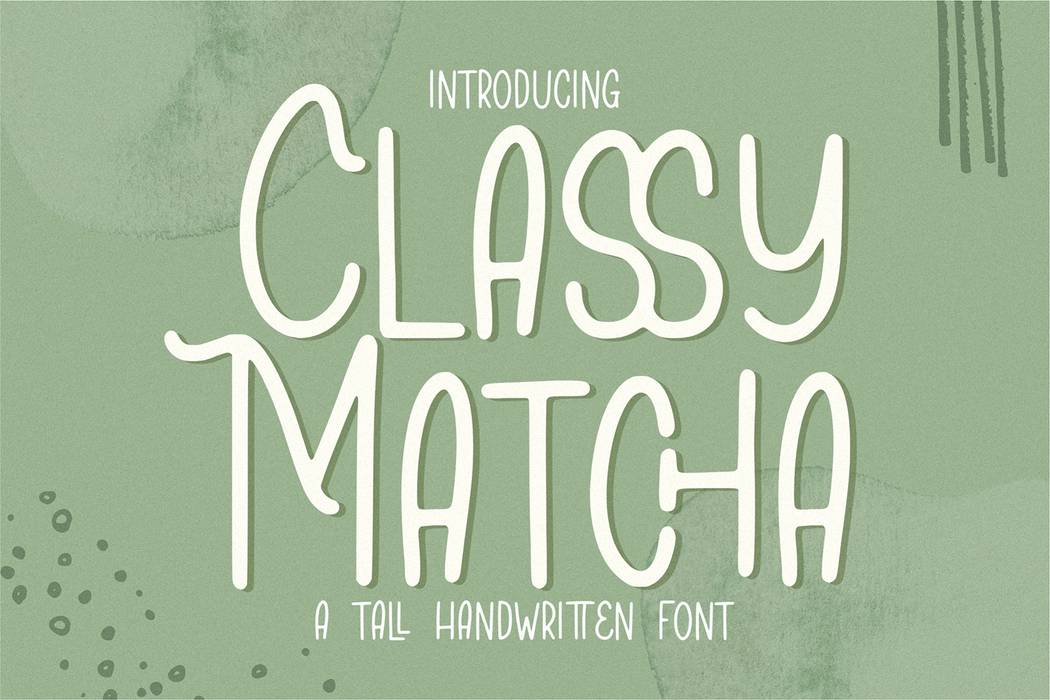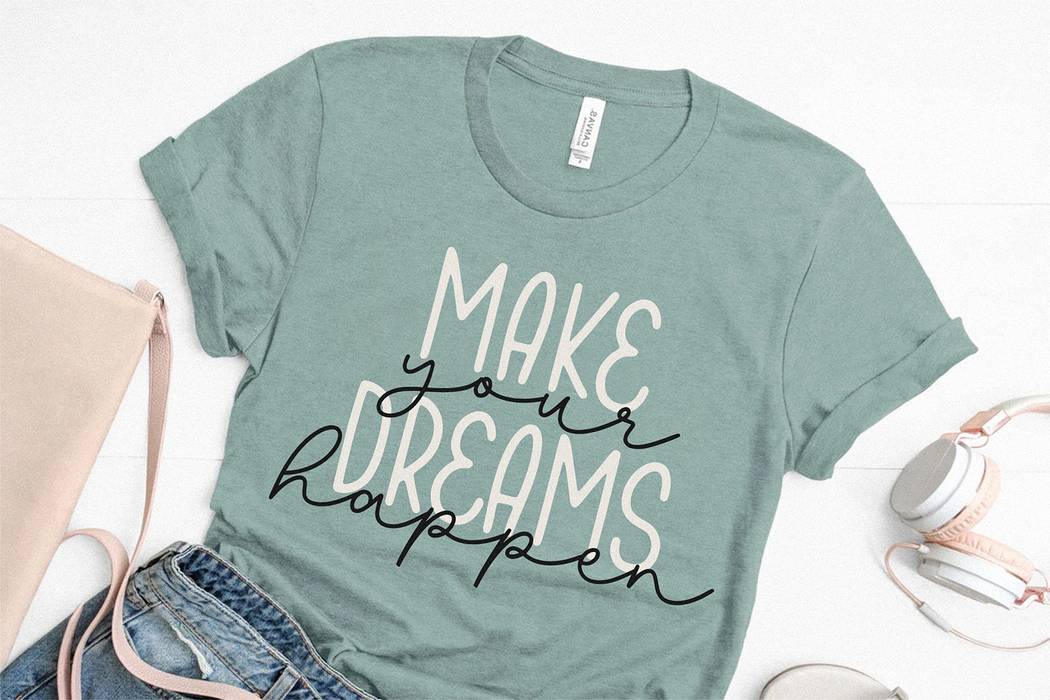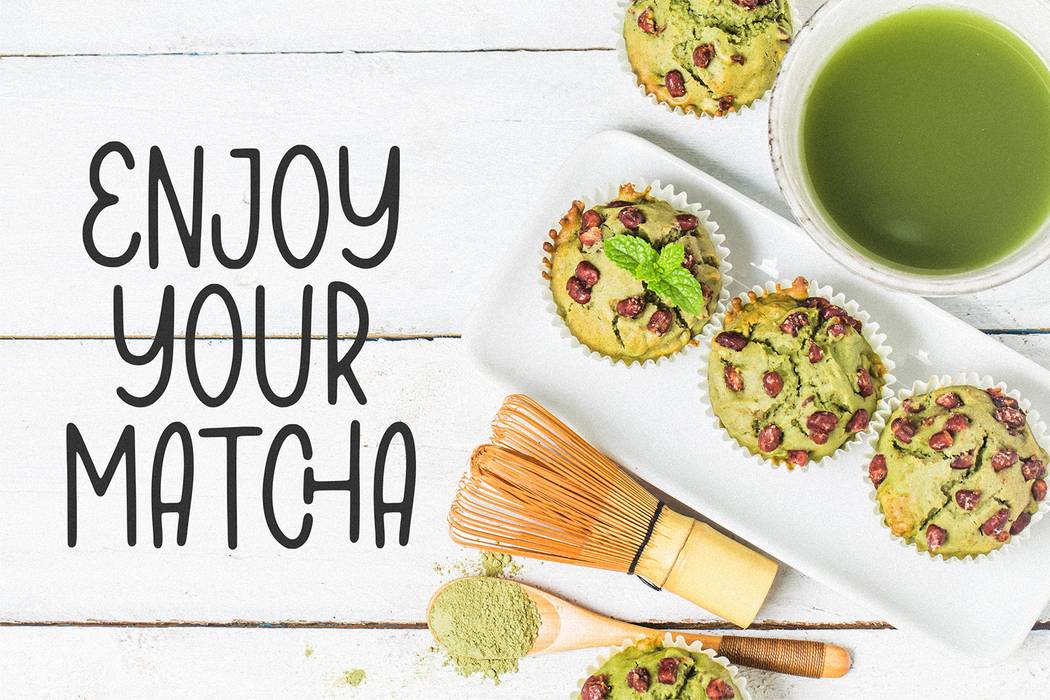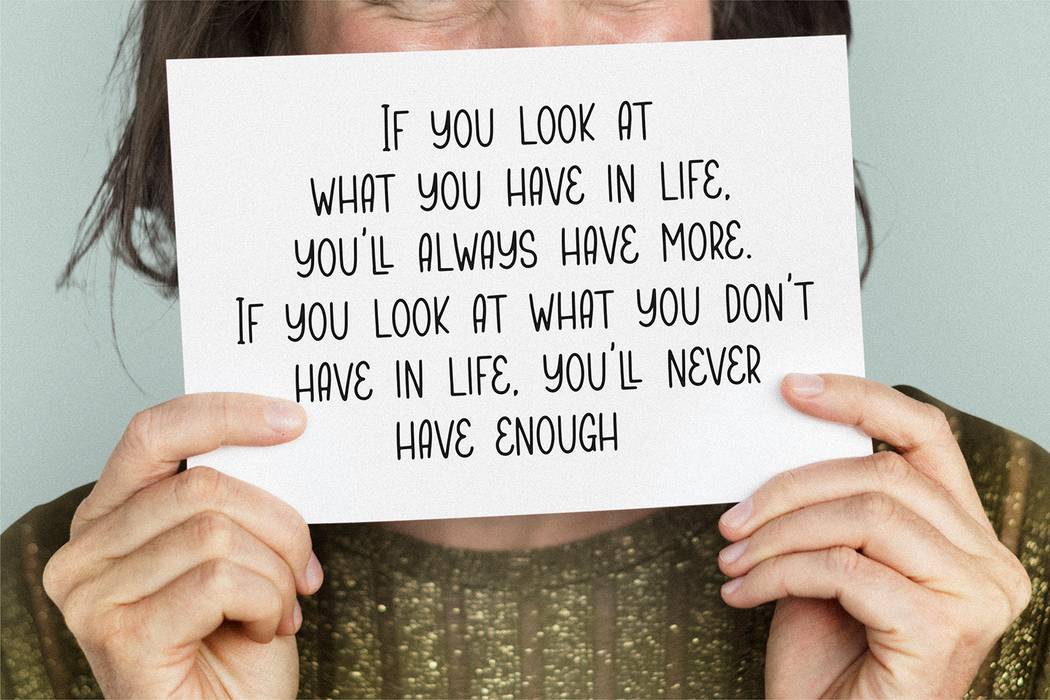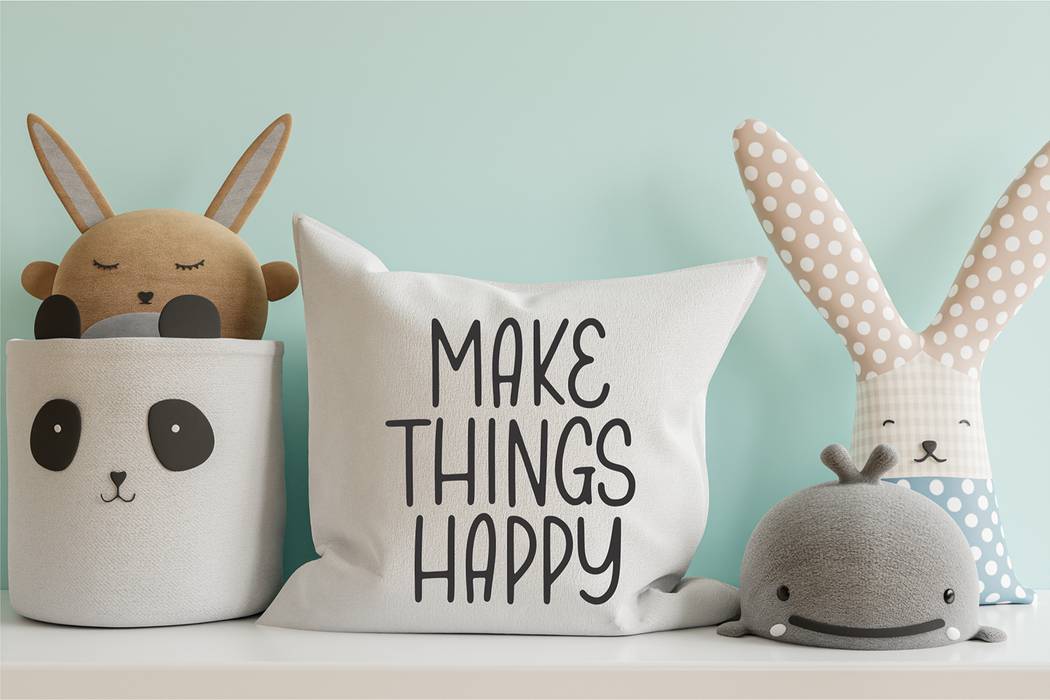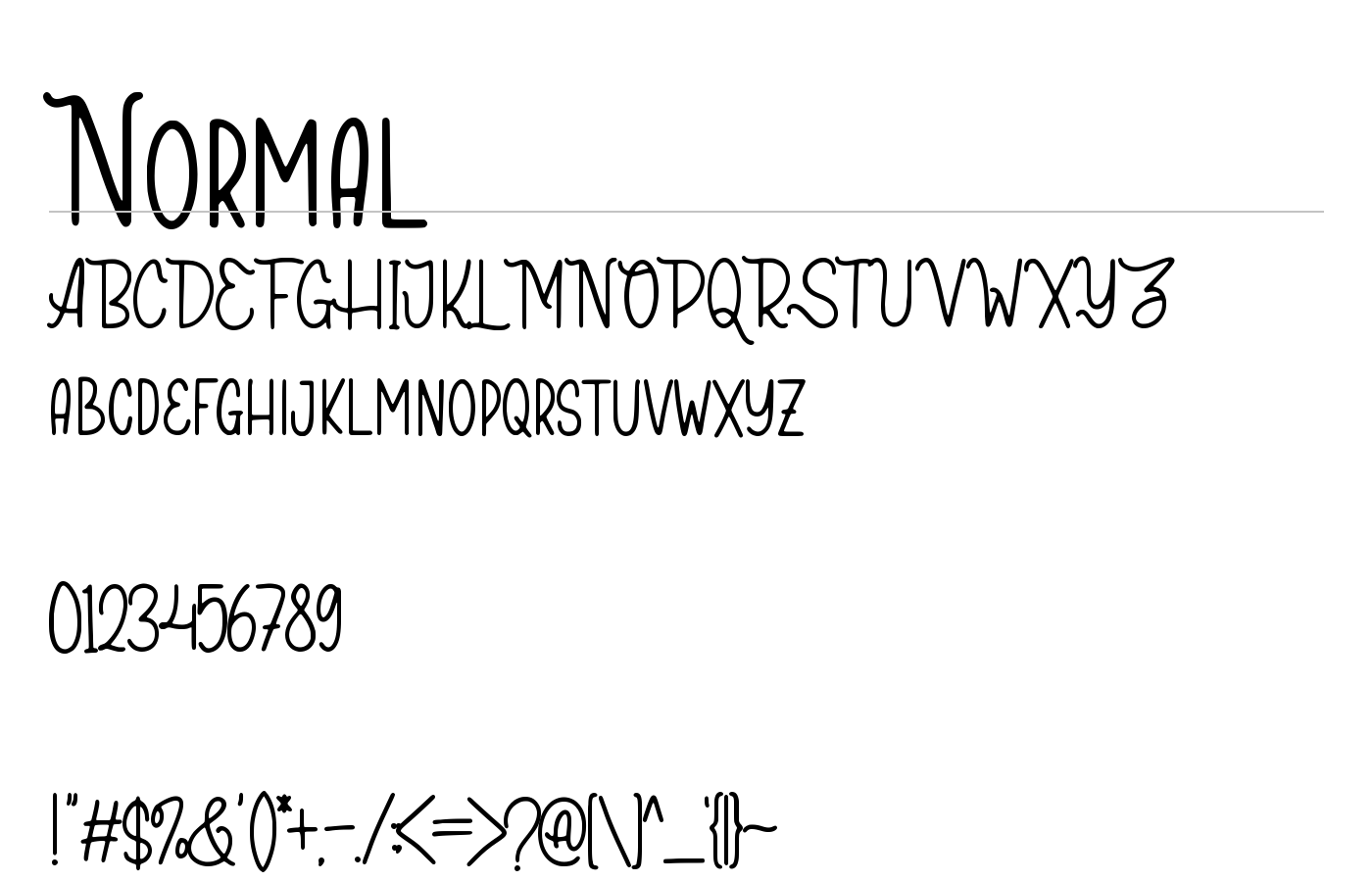
Classy Matcha is a playful and distinct sans serif font with a hand-drawn, quirky style characterized by tall, narrow letterforms and smooth, irregular strokes. Its lightweight structure and unique uppercase shapes give it a casual yet artistic feel, making it perfect for creative branding, invitations, or any design needing a friendly and whimsical touch. This font works best in headings or display uses where its fun personality can shine.
Classy Matcha Font
About Classy Matcha Font